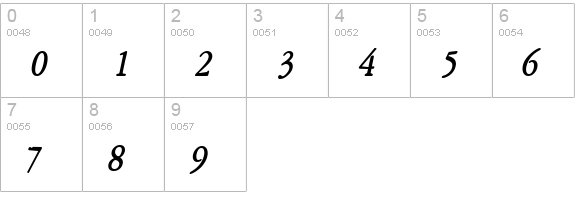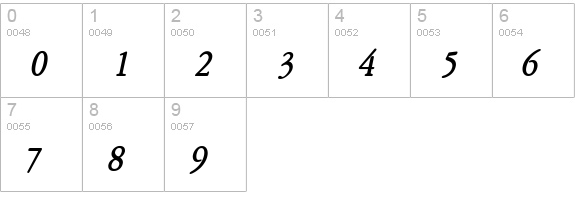
Amery Thin BoldItalic Font Details
Amery Thin BoldItalic is a delicate, low-contrast variant in the Amery typeface family \xE2\x80\x94 well suited to fashion editorial, minimal branding, and high-contrast display.
Introducing Amery Thin BoldItalic font, a stunning display typeface that combines elegance with a touch of modernity. This unique font features a sleek and sophisticated design, making it perfect for a wide range of creative projects. The bold yet thin strokes of the letters create a dynamic look that is sure to captivate any audience. With its bold italic style, Amery Thin BoldItalic font adds a sense of drama and flair to any design. Whether you are creating a logo, poster, website, or any other visual content, this font is sure to make a statement. Best of all, Amery Thin BoldItalic font is available for free download at FontsMarket.com. So, you can easily add this stylish font to your collection without any cost. Don't miss out on the opportunity to elevate your designs with the sleek and modern look of Amery Thin BoldItalic font. Download it today and see the difference it can make in your creative projects.